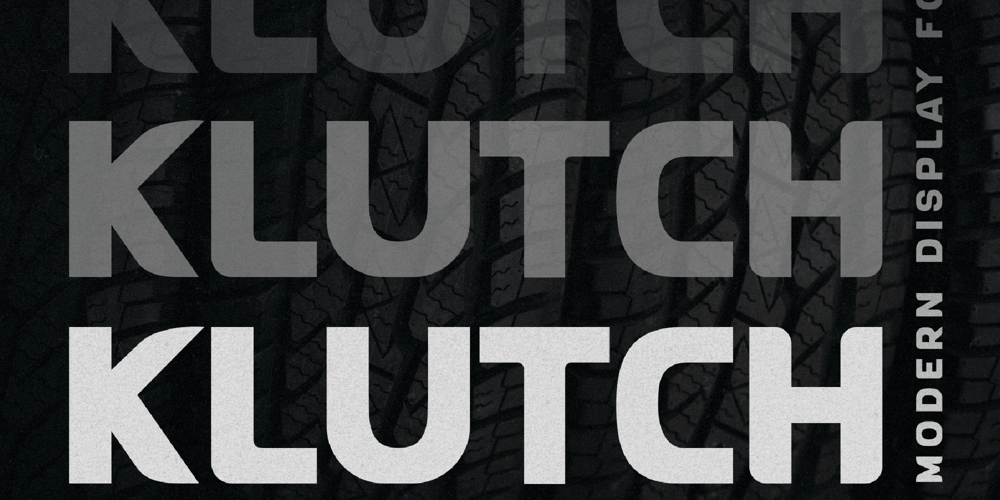
Klutch Font Family was designed by Igor Ovsyannykov and published by Hipfonts. Klutch contains 1 styles and family package options. Klutch is a beautiful racing themed typeface. It’s ideal for sports headlines, editorials, racing posters, esports, branding, website design, advertising and much more. If you’re looking for a beautiful typeface that creates the effect of power and speed, then Klutch is for you.